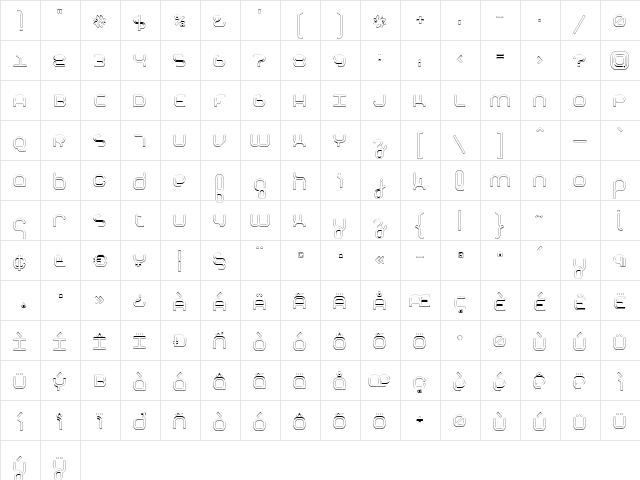
BasixMedium Outline Regular
Design Context for BasixMedium Outline Typeface
BasixMedium Outline brings ornamental detail and strong personality to headlines and identities, where visual impact matters more than quiet functionality.
Font Pairing: Pair with a clean neutral sans-serif for body copy to let BasixMedium Outline's character lead without overwhelming the composition.
Pro Tip: Use BasixMedium Outline exclusively at display sizes — it was designed to be seen, not read at length. Let a neutral companion handle body copy.